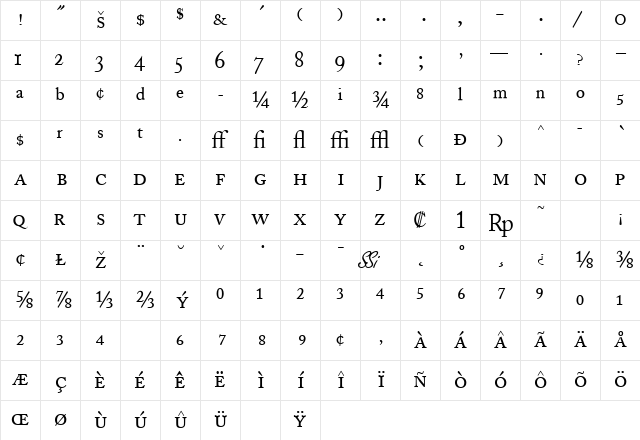
CaslonProSSK Regular
CaslonProSSK Family
Design Context for CaslonProSSK
CaslonProSSK is a composed and adaptable typeface that performs quietly and consistently across a wide range of design contexts.